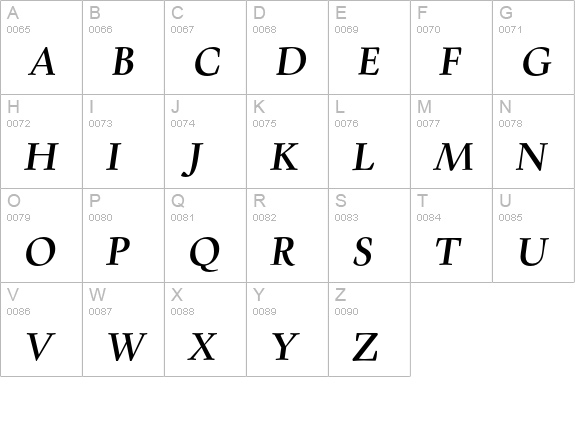
Kennedy Bold Italic is a strong, high-contrast, italic variant in the Kennedy typeface family \xE2\x80\x94 well suited to headlines, attention-grabbing titles, and strong calls-to-action.
Introducing the stunning Kennedy Bold Italic font, a true embodiment of elegance and sophistication. This unique typeface effortlessly combines a bold and italic design, creating a visually striking and captivating impression. With its sleek and modern appearance, Kennedy Bold Italic is perfect for adding a touch of class to any project. Its distinct letterforms are meticulously crafted, ensuring clarity and legibility without compromising on style. Whether used for headings, titles, or accentuating important text, this font truly commands attention. But what sets Kennedy Bold Italic apart is its incredible versatility. It effortlessly transitions from high-end luxury branding to fashion editorials and everything in between. Its bold strokes and italicized slant make it perfect for conveying a sense of boldness and confidence, while still maintaining an air of refinement. And the best part? Kennedy Bold Italic is available for free! Yes, you read that correctly. This remarkable font can be freely downloaded at FontsMarket.com, ensuring that anyone can access its beauty and transform their projects into works of art. So why wait? Elevate your designs with the exquisite Kennedy Bold Italic font today and leave a lasting impression on your audience. Whether it's for print or digital media, personal or commercial use, this font is sure to inspire and captivate. Don't miss out on this incredible opportunity to enhance your creative endeavors with a font that effortlessly combines elegance and expression. Download Kennedy Bold Italic now, and let your imagination run wild.